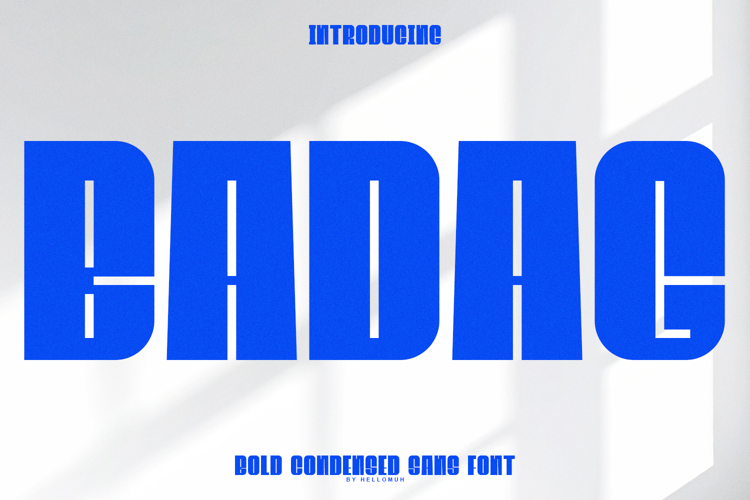
BADAG - Bold Condensed Sans is a modern display typeface designed to deliver strong visual impact and clean readability. Featuring tall letterforms, bold strokes, and geometric cuts, this font brings a powerful, contemporary, and industrial feel to any design.
Its condensed proportions make it ideal for space-efficient layouts while maintaining a bold presence. Perfect for projects that require attention-grabbing typography with a professional look.